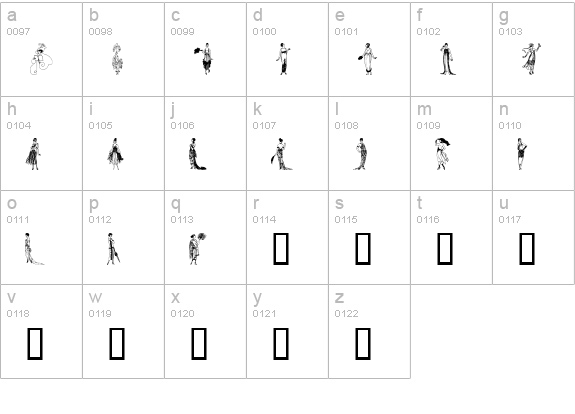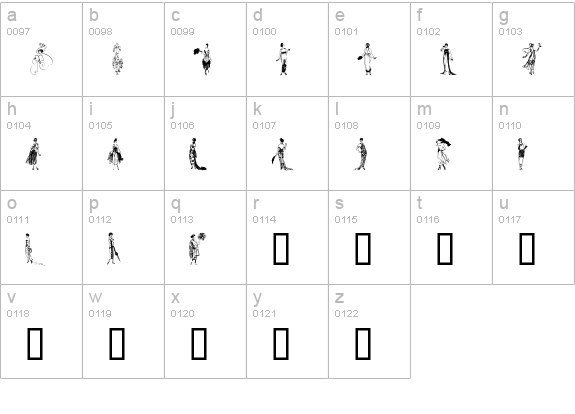
Ladies of the 20's Font Details
Introducing Ladies of the 20's, a font that effortlessly captures the elegance and grace of the roaring twenties. This font pays homage to the women who broke free from societal norms, embracing freedom, and expressing their individuality in every aspect of their lives. With its delicate and refined strokes, Ladies of the 20's exudes a timeless charm that transports you back to an era of glamour and sophistication. Whether you are designing invitations for a Gatsby-inspired party, creating stunning vintage logos, or adding a touch of old-world charm to your digital projects, Ladies of the 20's is the perfect choice. Its intricate details and intricate ligatures create a truly authentic vintage feel that effortlessly elevates any design. And the best part? Ladies of the 20's is freely available to download at FontsMarket.com. So, you can bring a piece of the twenties into your designs without any limitations or constraints. Let your creativity run wild as you explore the endless possibilities that this font offers. So, why wait? Embrace the spirit of the 1920s, break free from convention, and add a touch of vintage elegance to your designs with Ladies of the 20's. Download it now at FontsMarket.com and let your creativity soar.